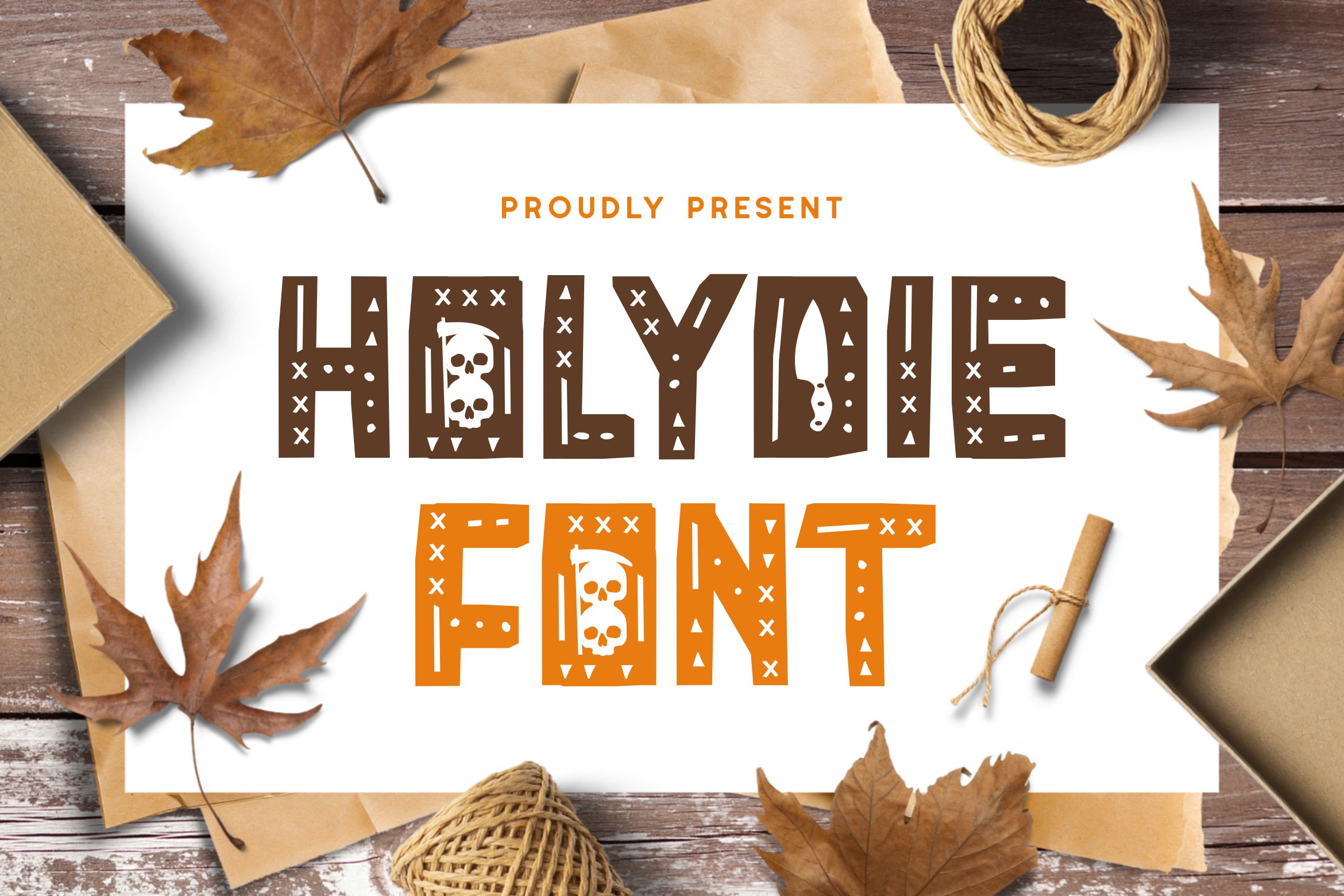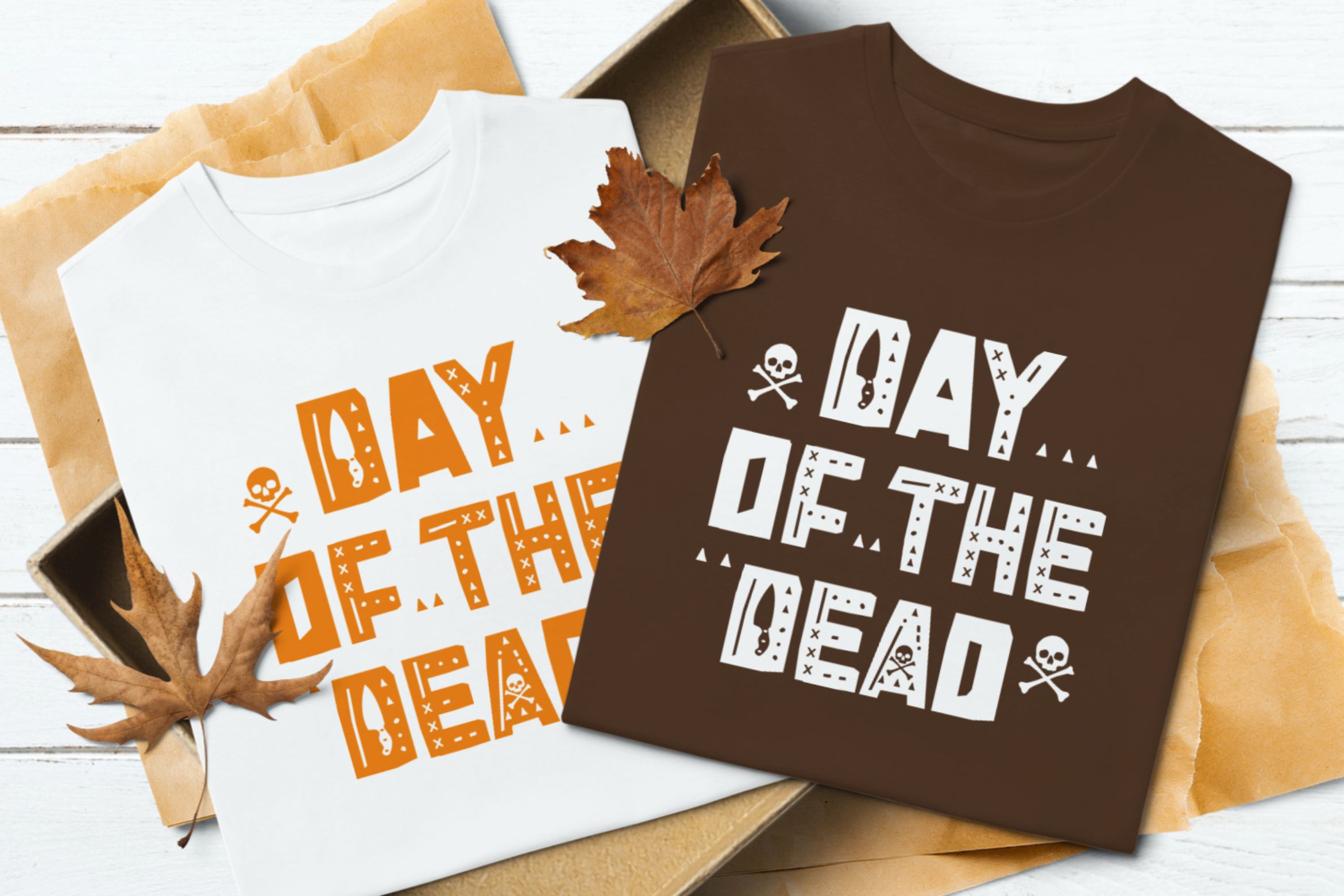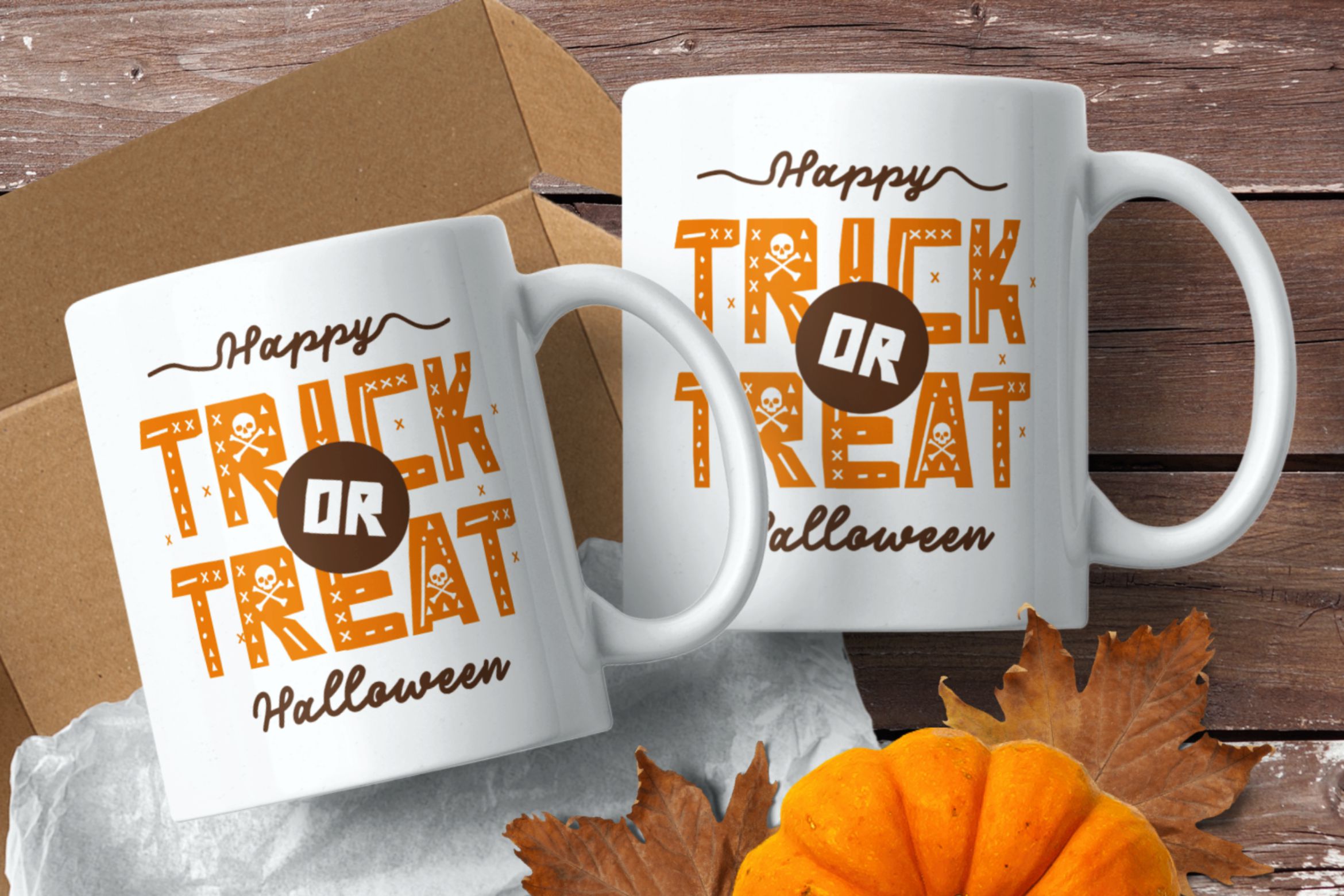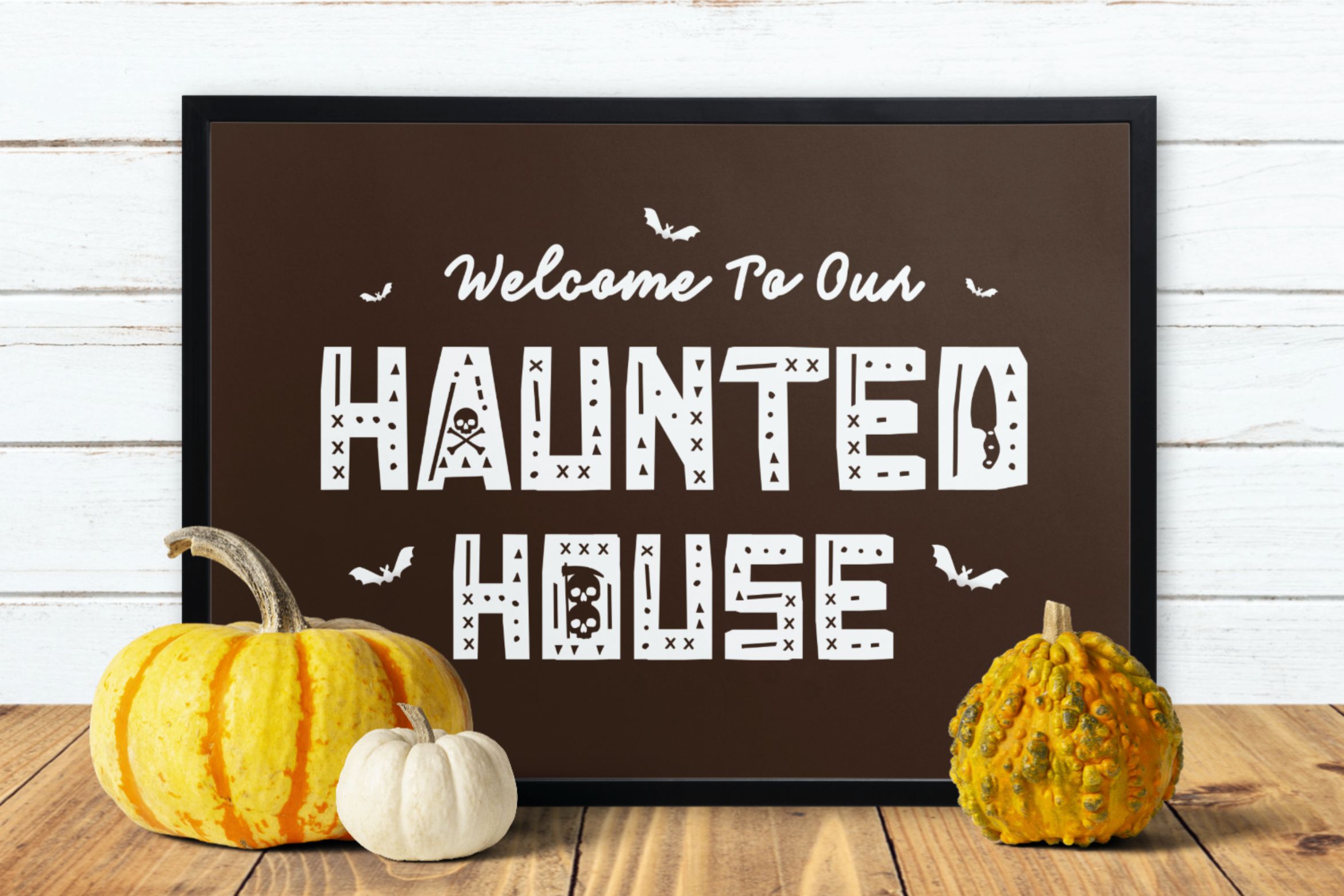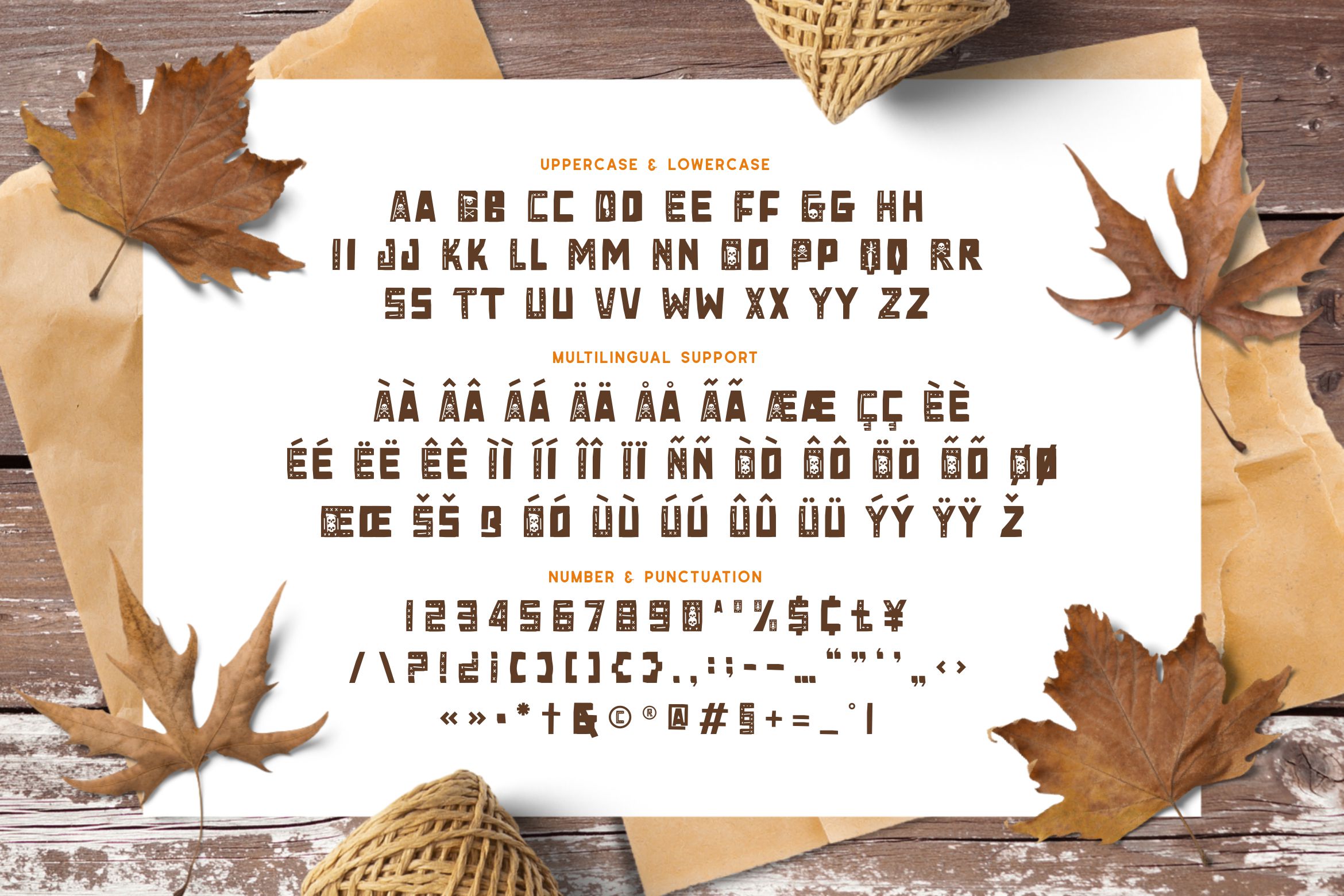
Say hello to Holydie, a playful and spooky display font inspired by Halloween festivities and Día de los Muertos traditions. Featuring quirky blocky letterforms filled with skulls, knives, stitches, and tribal marks, Holydie delivers bold personality and festive eeriness in every character. It’s the perfect font to bring life (and afterlife!) to your seasonal projects.
With complete uppercase and lowercase letters, multilingual support, and a variety of symbols and punctuation, Holydie is ideal for posters, packaging, t-shirt designs, party invitations, mugs, and decorations. Whether you’re designing for trick-or-treat events, haunted houses, or spooky branding, this font adds a fun and frightful twist to your message.
HOLYDIE FONT